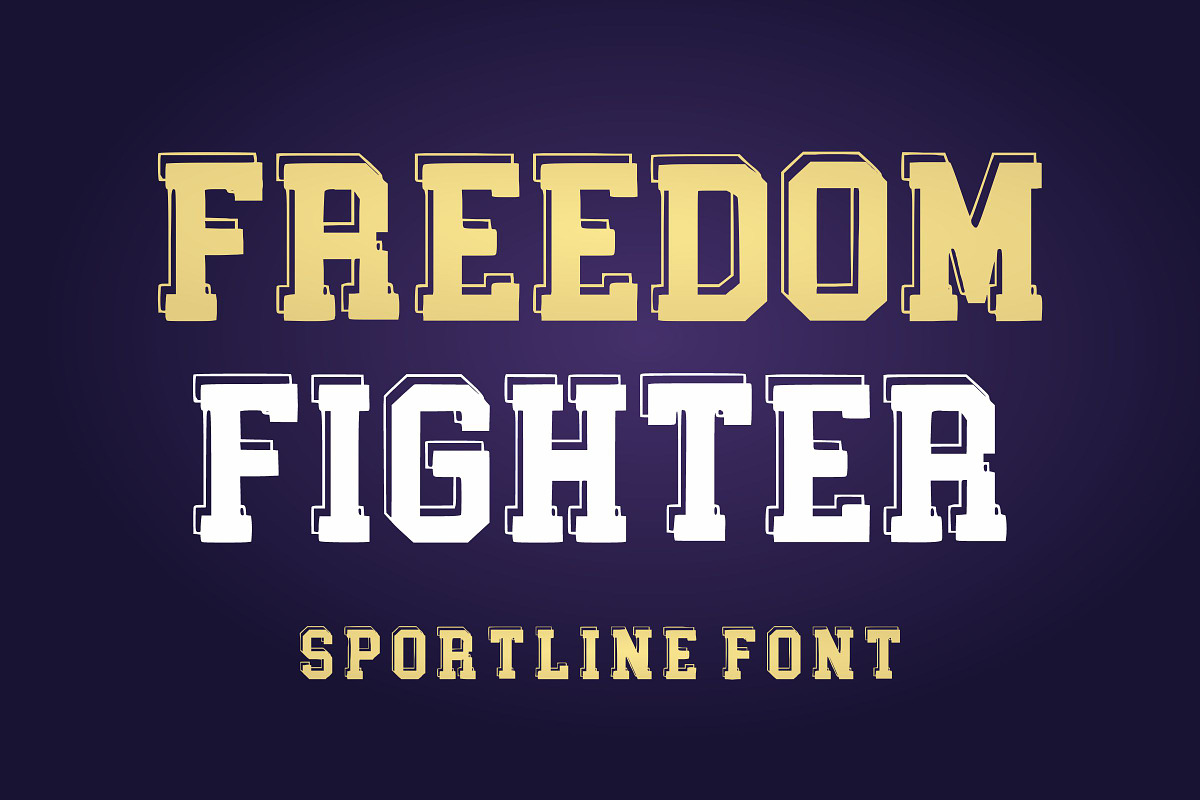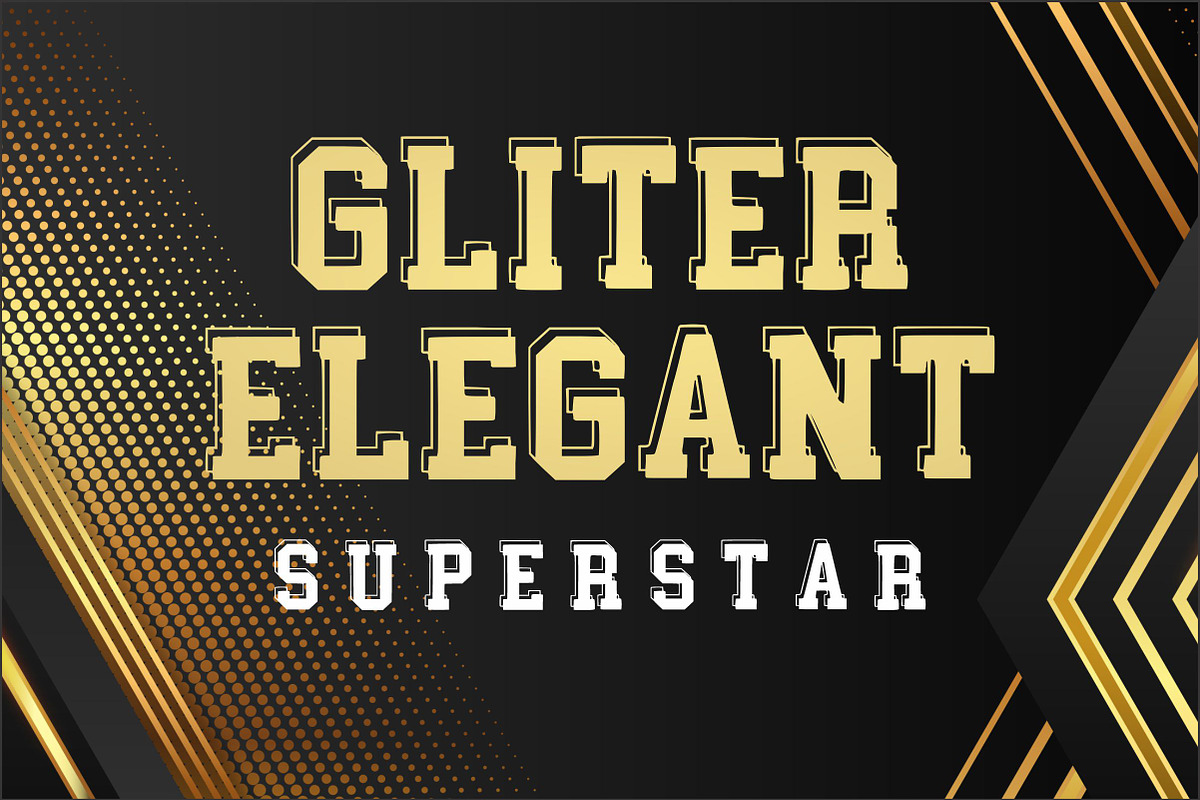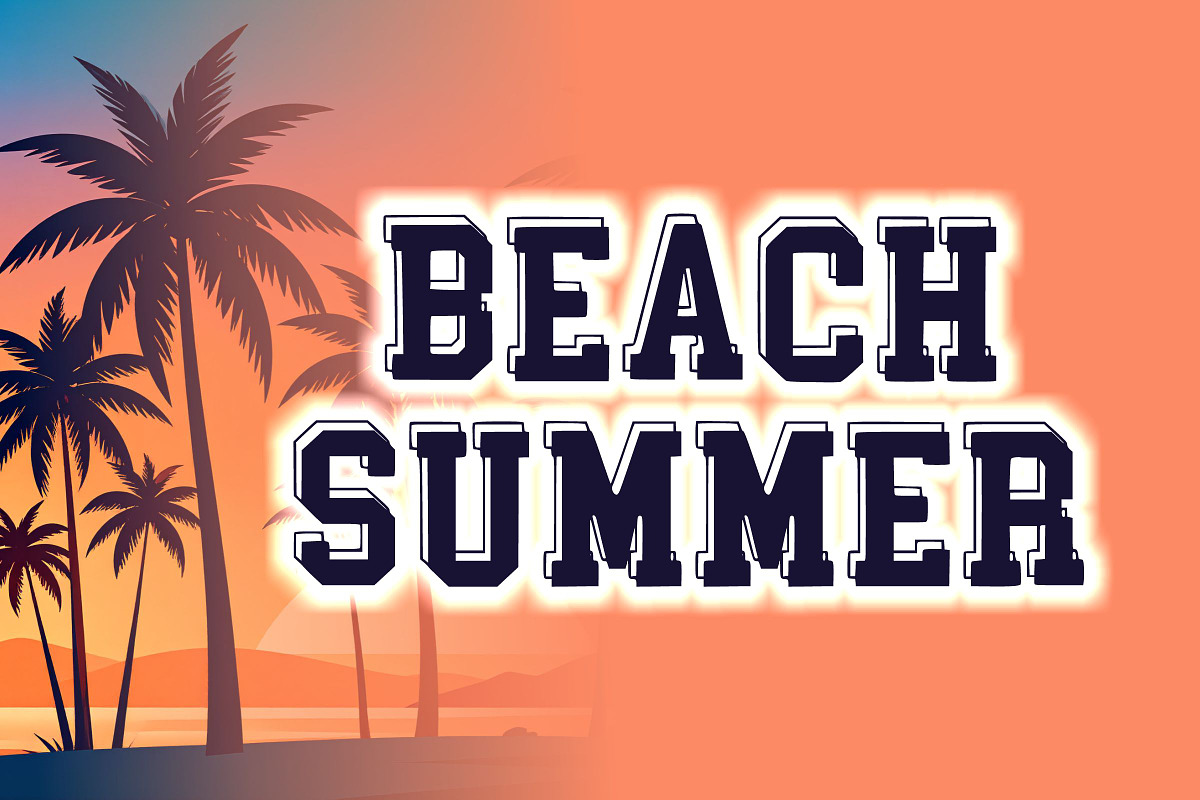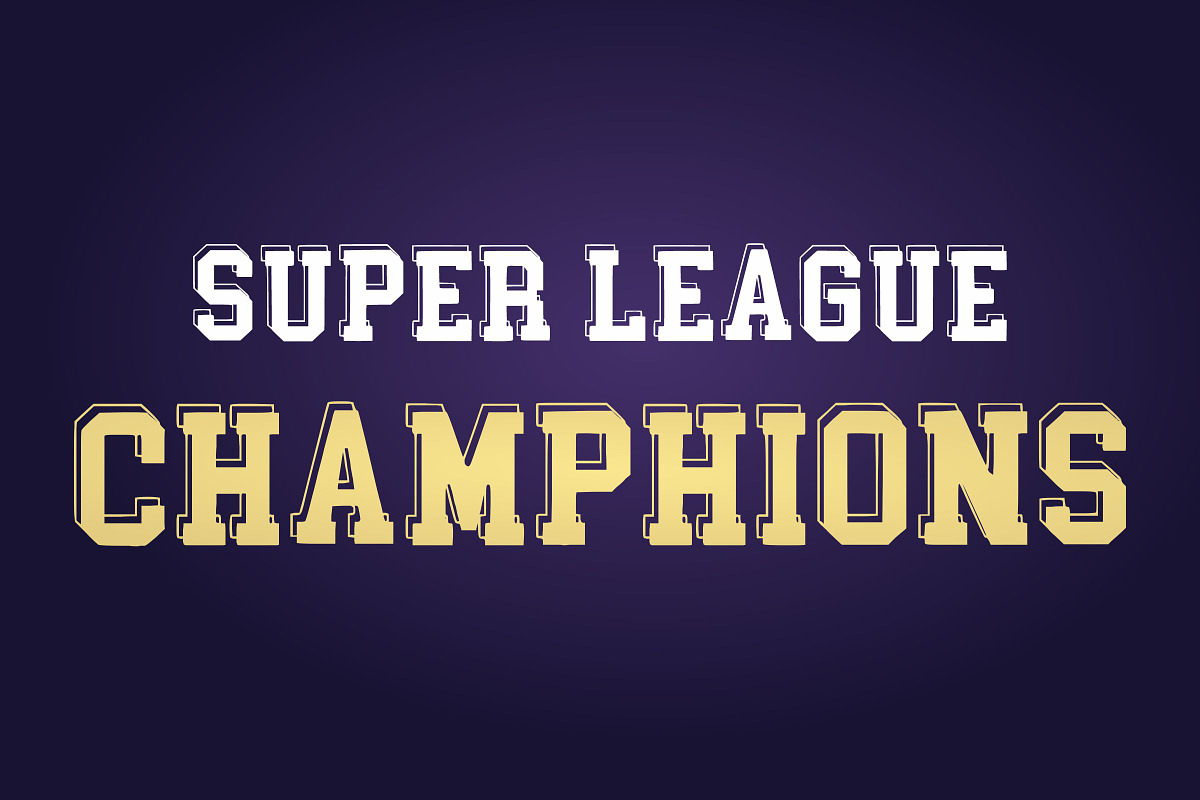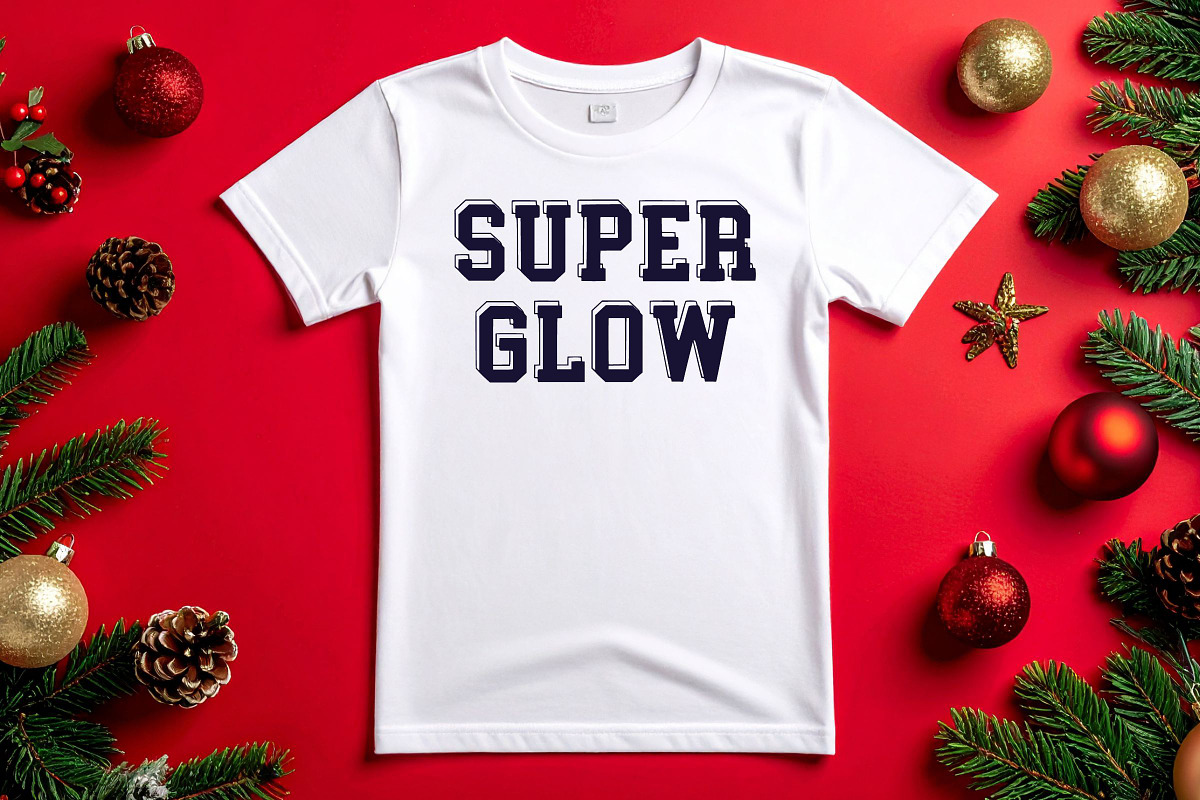
Freedom Fighter
Command the field and inspire victory with Freedom Fighter font, a powerful slab-serif built for champions and leaders.
This Freedom Fighter typeface is a masterclass in athletic typography, featuring bold, “varsity” inspired block letters with a distinctive inner-line detail that adds depth and motion. Designed for impact, the Freedom Fighter font is the go-to choice for sports team branding, fitness apparel, and motivational posters. Its heavy, architectural presence ensures that your message is heard loud and clear, whether it’s on a stadium scoreboard or a digital banner.
The Freedom Fighter typeface is engineered for versatility in the competitive sports market. The dual-line “sportline” effect allows for easy multi-color layering, making it simple to match your team’s colors. To enhance your design, pair the Freedom Fighter font with a condensed sans-serif for player stats or technical details; this maintains a high-performance look throughout the project.
It is equally effective for military-style branding, e-sports logos, and university apparel. When you need a font that represents strength, resilience, and a “never quit” attitude, the Freedom Fighter typeface is your most valuable player.